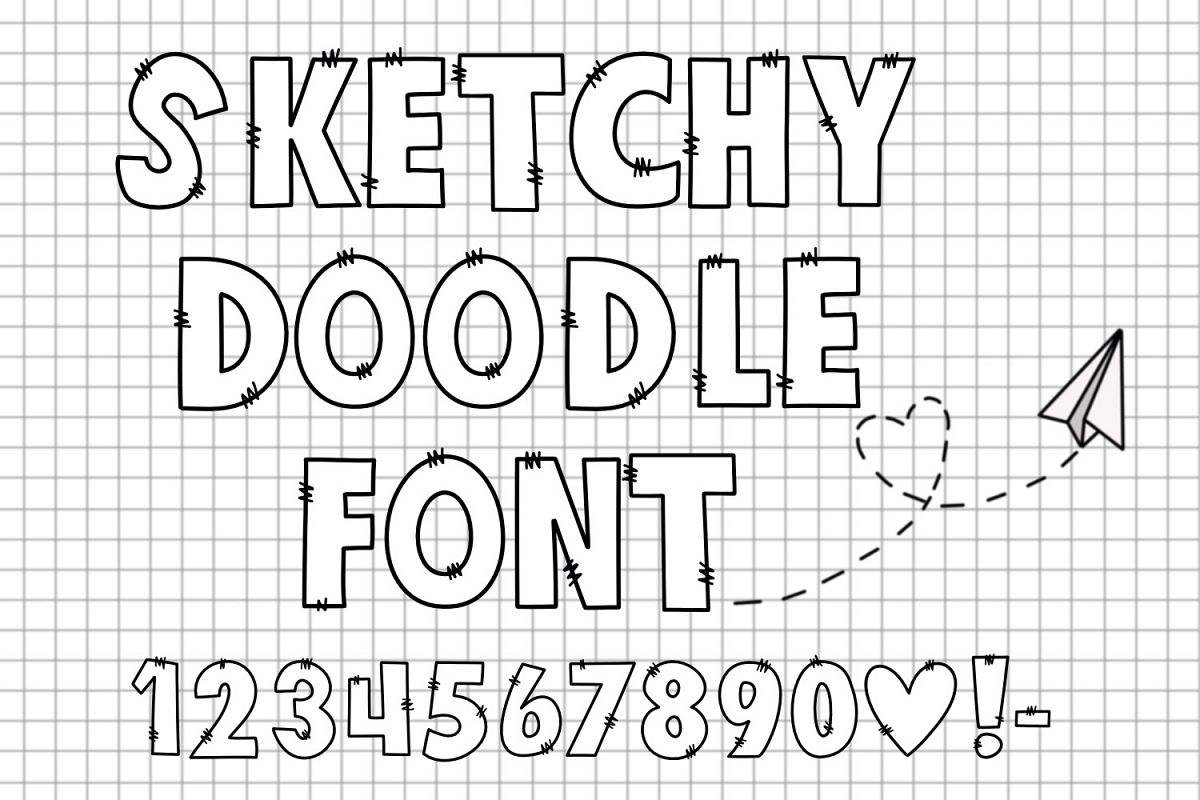
List Of Doodle Fonts Ideas
List Of Doodle Fonts Ideas. Thousands of fonts available for download. It can easily be matched to an incredibly large set of projects, so add it to your creative ideas and notice how it makes them stand out!
(Page 2) Doodle Font Types For Creating Fun Designs Doodle Fonts Can.
It Can Easily Be Matched To An Incredibly Large Set Of Projects, So Add It To Your Creative Ideas And Notice How It Makes Them Stand Out!
Doodle is a jovial dingbats font that has everything you need to express happiness: Your doodle font where you can use your doodle drawing. Doodle fonts explore 113,480 stunning doodle fonts to download and find the perfect match that fits your next web and print design projects of all sizes.
16+ Doodle Fonts Blooming Elegant Doodle Font.
If you type an “a” on your keyboard, an image or doodle will appear. The sun, a baby’s foot, flowers, fluffy clouds, cute fish, stars, a smiley face, and everything in. Browse by category or search for the perfect font.